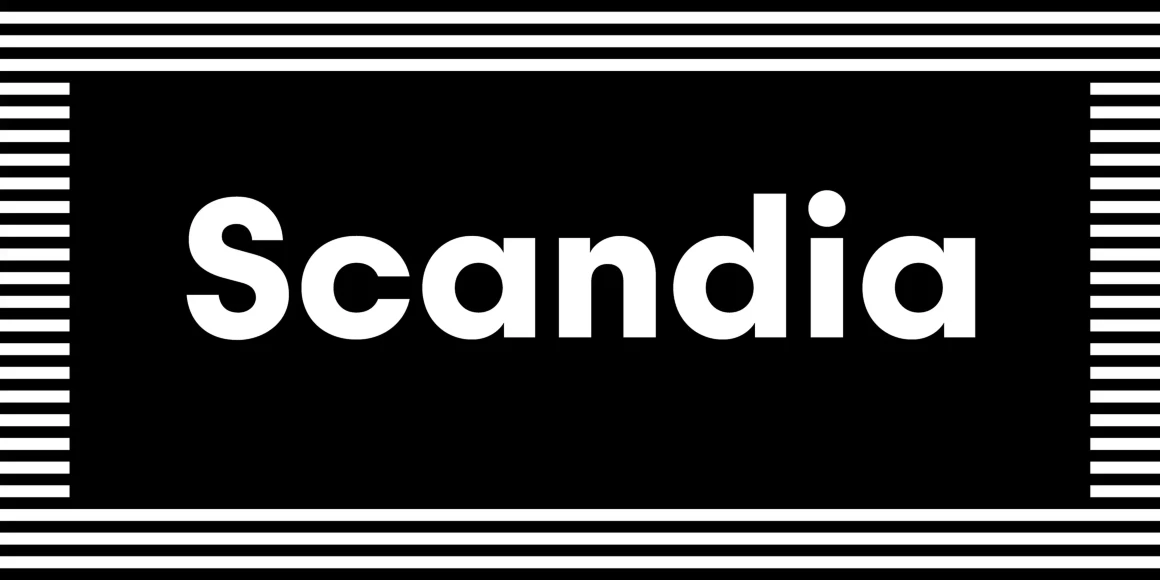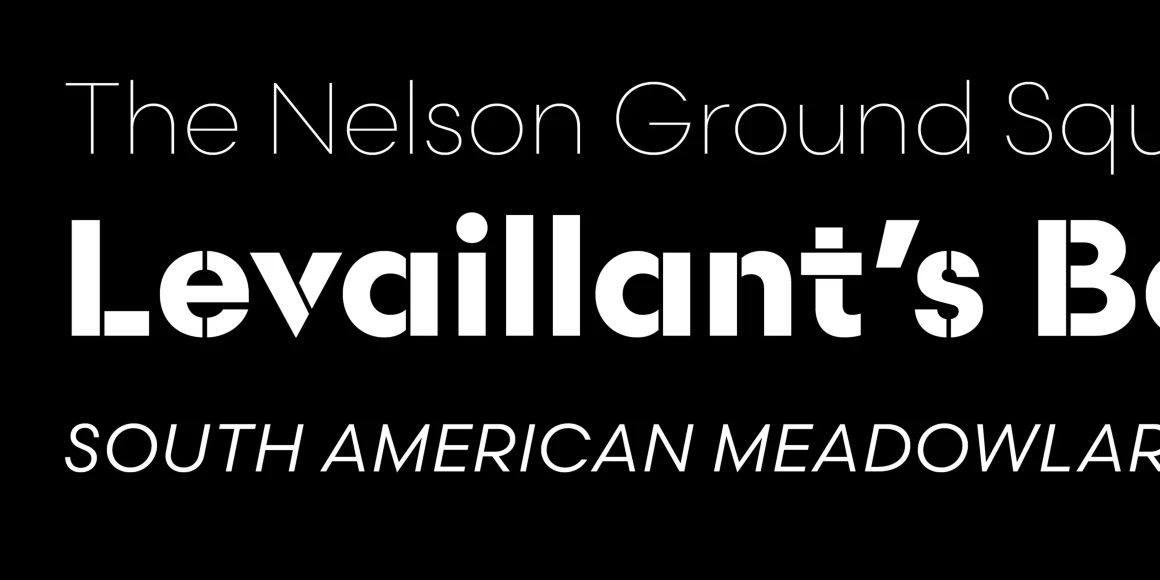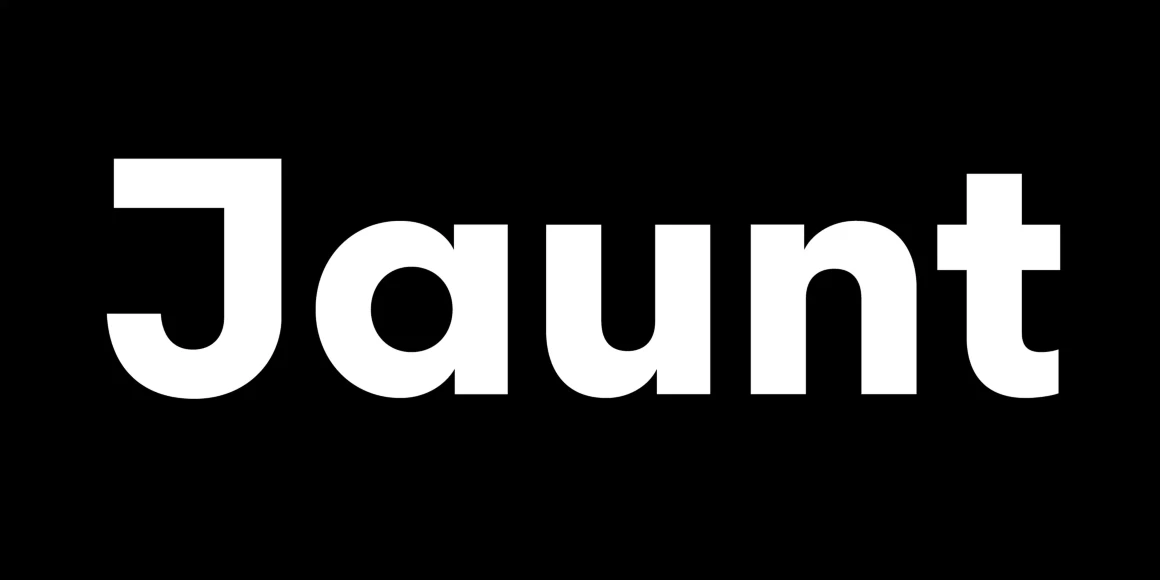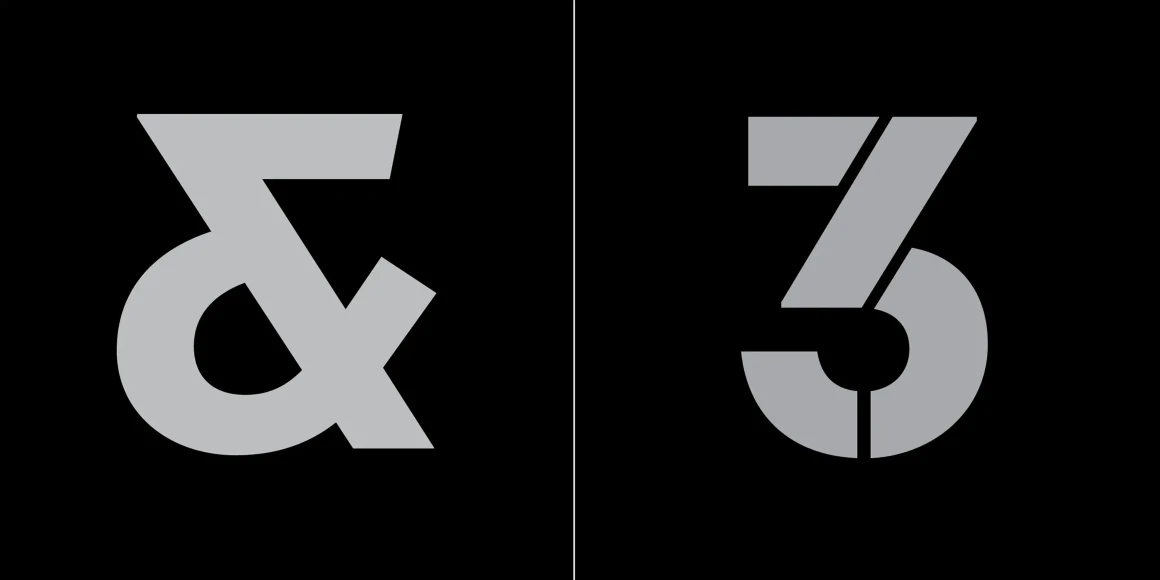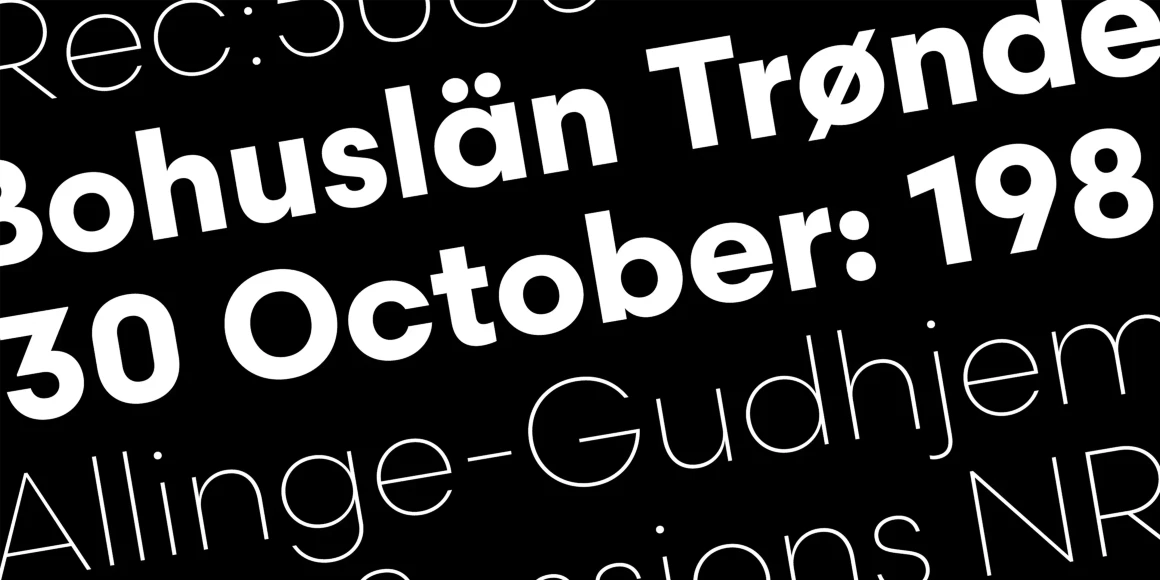
Scandia
From Process Type Foundry
Based on Scandia Line, Scandia is a full-bodied sans serif that trades the angles of its sibling for lush curves. With a nod to classic geometric designs, it’s a steady and versatile family that works well in display settings and identity work. All four weights have matching italics and the Bold is complemented by a stencil variant. Plus, a handful of characters have stylistic alternates with sharper corners (A, M, N, V, W, v, and w).
Designed by Eric Olson